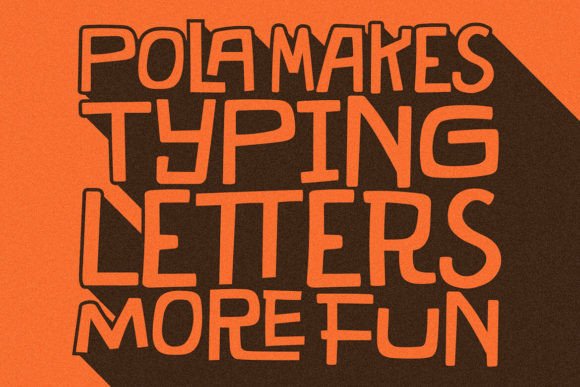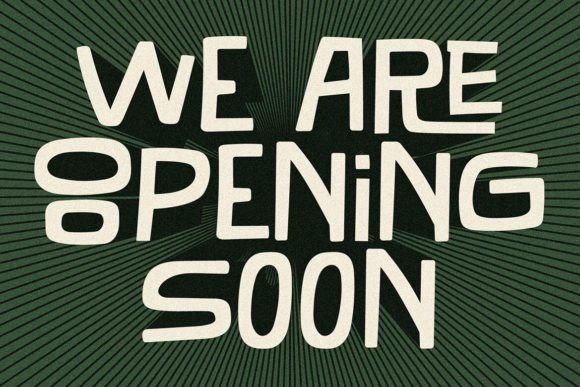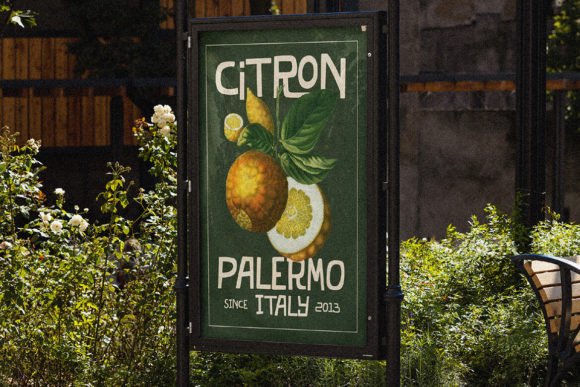
Introduction to Pola Perca Font
You know that moment when you’re brainstorming ideas for a creative project and suddenly, the perfect font pops into your head? That’s exactly what happened when we discovered the Pola Perca Font. This tiki-inspired display font is full of fun and personality, making it the perfect addition to any design resource.
As designers, we’re always on the lookout for high-quality fonts that can elevate our work and make it stand out. That’s why we’re excited to share the Pola Perca Font with you. With its playful and random baseline, this font is guaranteed to add a touch of whimsy to your designs. And the best part? It’s highly legible and easy to read, making it perfect for headlines, titles, packaging, logos, and any design element that needs to convey its message with clarity and style.
Pola Perca Font
- Unique, hand-drawn design with intricate details, perfect for adding a personal touch to your creative project.
- Includes a wide range of characters, including uppercase and lowercase letters, numbers, and punctuation marks.
Honest Review: Pola Perca Font
What works well: ✨ The Pola Perca Font has a unique, playful design that’s perfect for projects that require a touch of whimsy. The font is available in various styles, including bold and italic, which makes it versatile and easy to use. The transparent background option is also a great feature, allowing me to layer the font on top of other design elements.
- Playful and versatile
Overall, the Pola Perca Font is a great addition to any design resource library. While it may have some limitations, its unique design and high-quality construction make it a valuable asset for creative projects. I’d definitely recommend it to fellow designers looking for a fun and versatile font.
Pola Perca Font
Tips for Getting the Most Out of Pola Perca Font
For the best results, use the Pola Perca Font in conjunction with other high-quality design elements. Experiment with different font sizes, colors, and arrangements to create visually appealing designs.
The Pola Perca Font is ideal for a variety of creative projects, including logos, business cards, brochures, and social media graphics. Its unique design and transparent background make it perfect for adding a touch of personality to your designs.